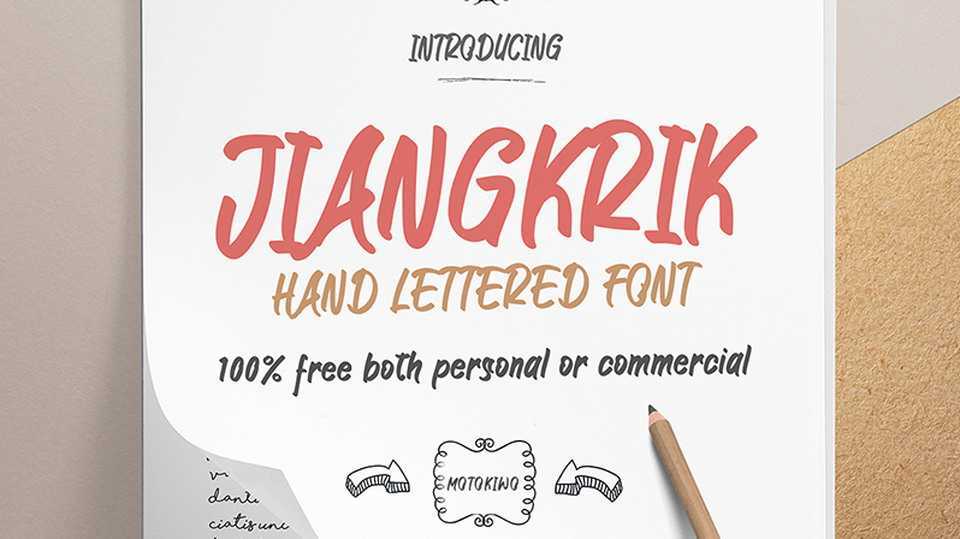
Download Jiangkrik font, an attractive casual style hand lettered font. Perfect for everyday designs, crafts, letters, cards, prints, posters, and more.
Designer: Motokiwo